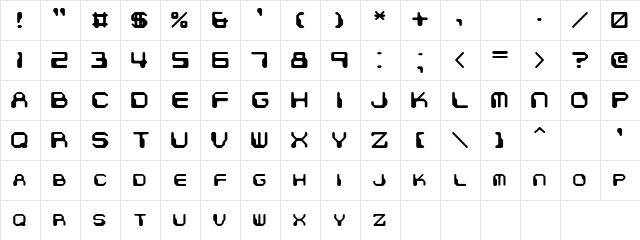
Bulged Bullets Regular Free Font
Bulged Bullets Regular
Design Context for Bulged Bullets
Bulged Bullets is a composed and adaptable typeface that performs quietly and consistently across a wide range of design contexts.
Pro Tip: Use Bulged Bullets in both headline and body roles to test its range before committing to a single application.